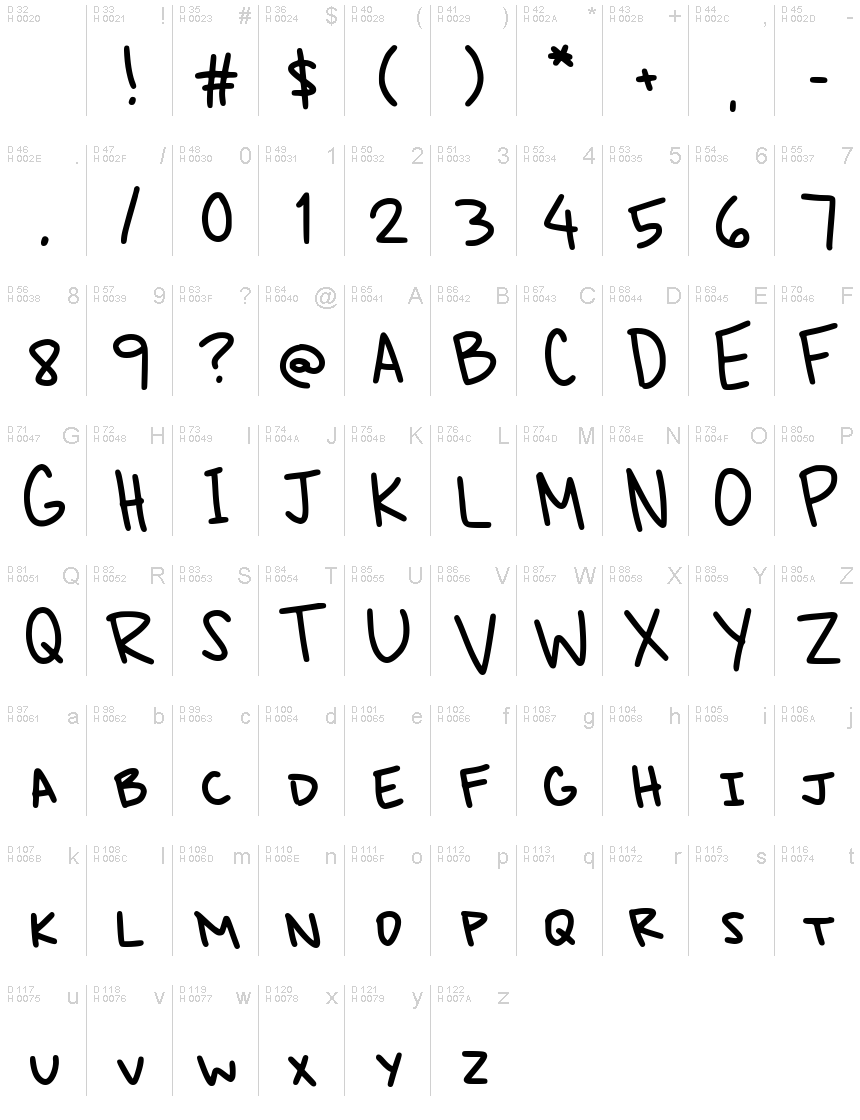
Very Epic Handwriting L Regular
Very Epic Handwriting Lite font by arisSome1 embodies a charming handwritten style. This light-weight font features playful, sweeping letters that capture the essence of creativity and individuality. Perfect for projects seeking a personal touch, it stands out in contexts like greeting cards, digital notes, or casual branding initiatives.
With its distinctive flair and approachable aesthetics, this free font offers versatile applications across various design needs. Whether you're crafting an invitation or enhancing a website with unique typography, Very Epic Handwriting Lite provides an engaging option. Download this font for free today and infuse your work with its fun and easy-going character.